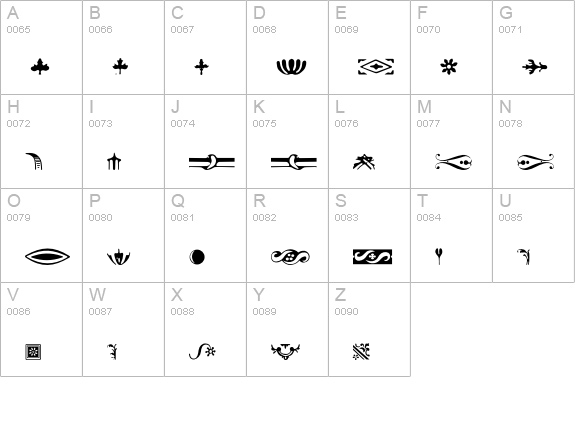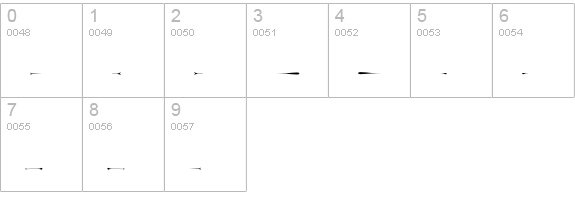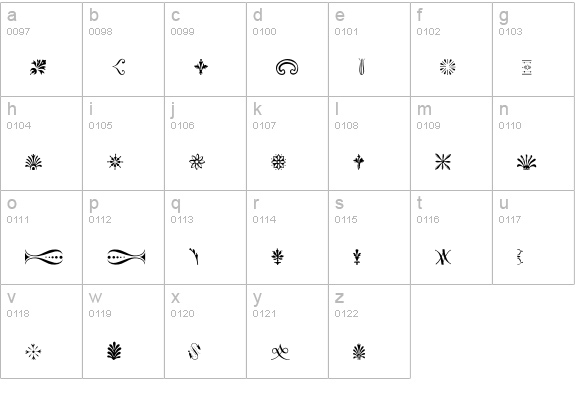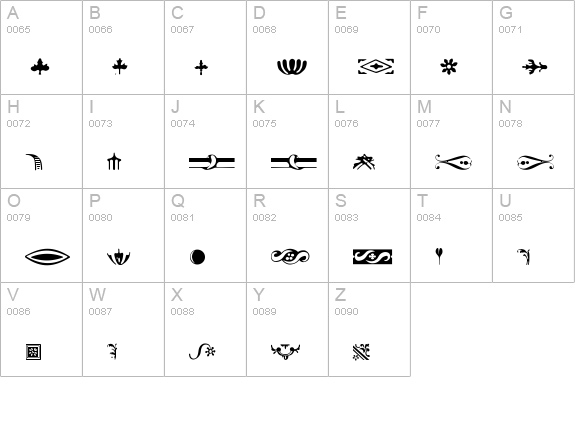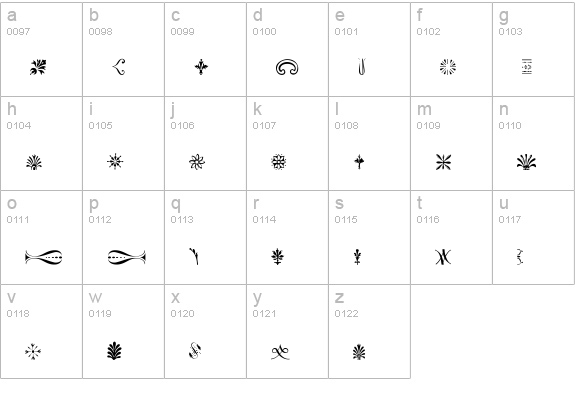
BodoniClassic-Ornaments font is a stunning display typeface that exudes elegance and sophistication. Its intricate decorative ornaments add a touch of luxury and charm to any design project. This font is perfect for creating eye-catching headings, invitations, and other creative projects that require a touch of class. The best part is that BodoniClassic-Ornaments font is available for free download at FontsMarket.com. You can easily access this beautiful font and elevate your designs without any cost. Don't miss out on the opportunity to enhance your projects with the timeless beauty of BodoniClassic-Ornaments font. Download it today and add a touch of elegance to your design work.